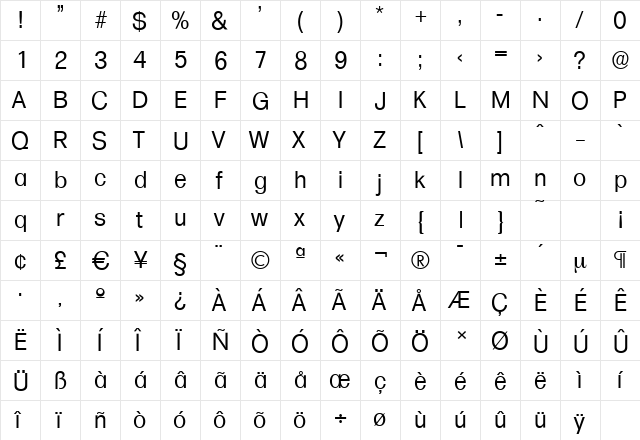
FormulaSerial Regular Font Preview
FormulaSerial Regular
FormulaSerial Regular Font Details
Design Context for FormulaSerial Typeface
FormulaSerial takes a measured approach to typography — its balanced proportions and neutral character make it a reliable workhorse for both digital and print work.